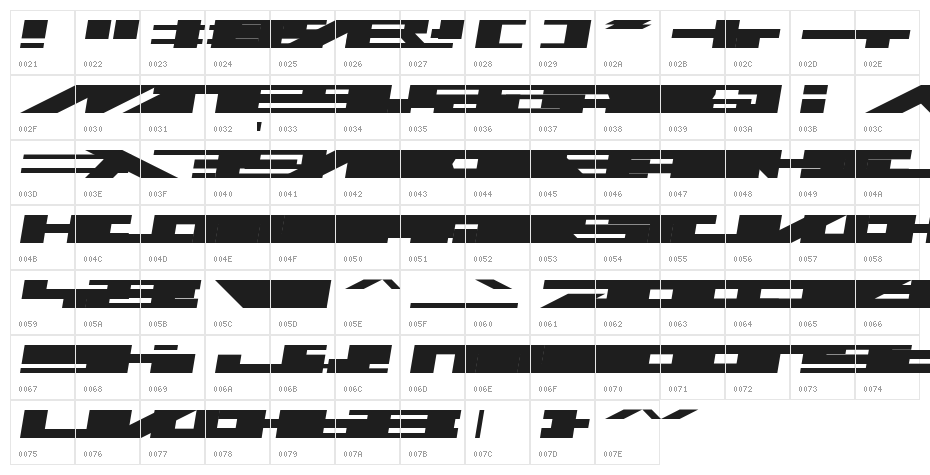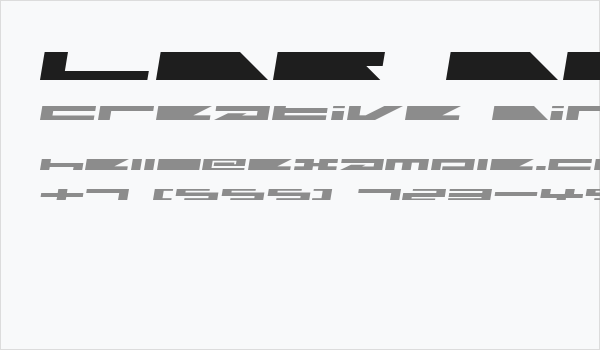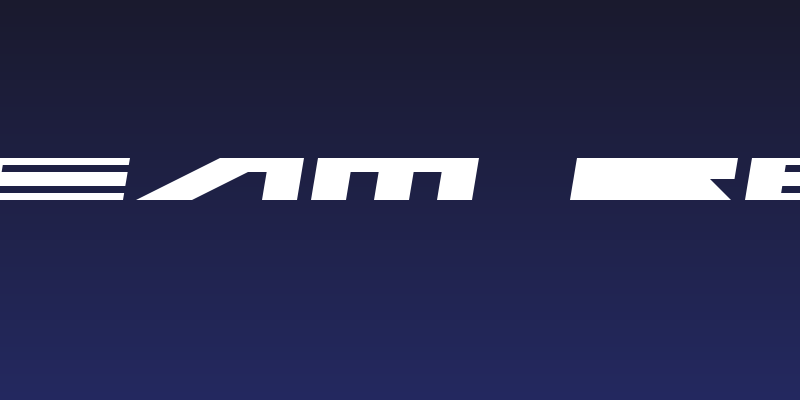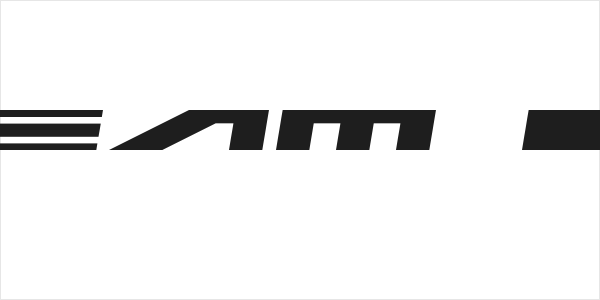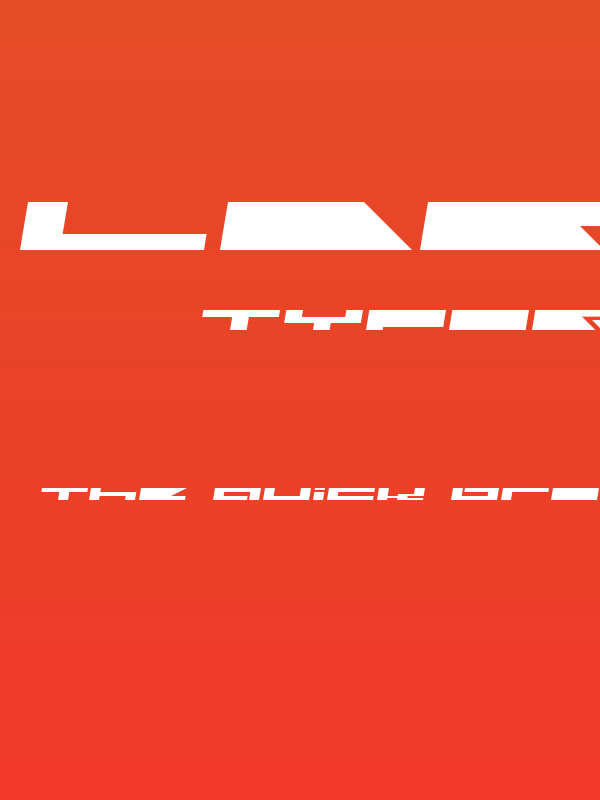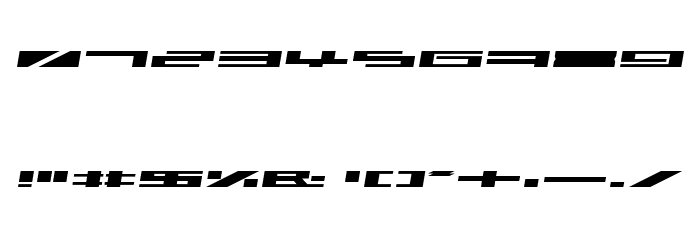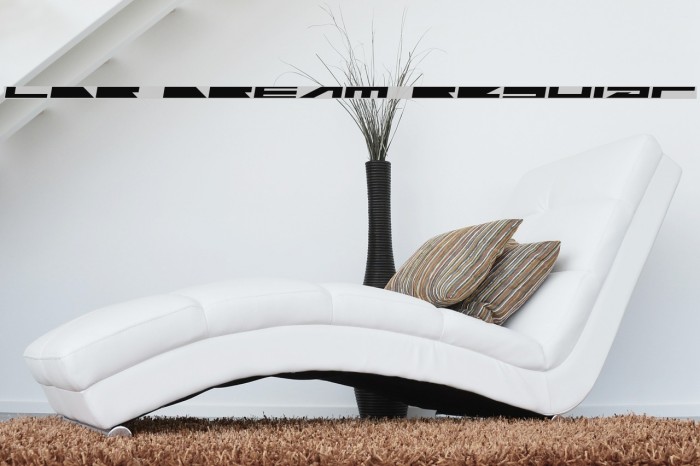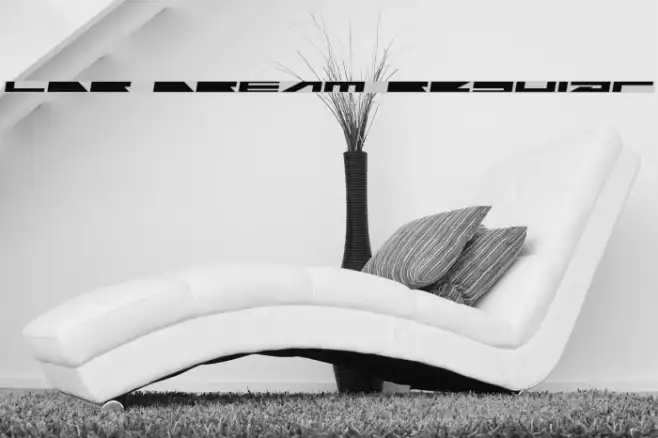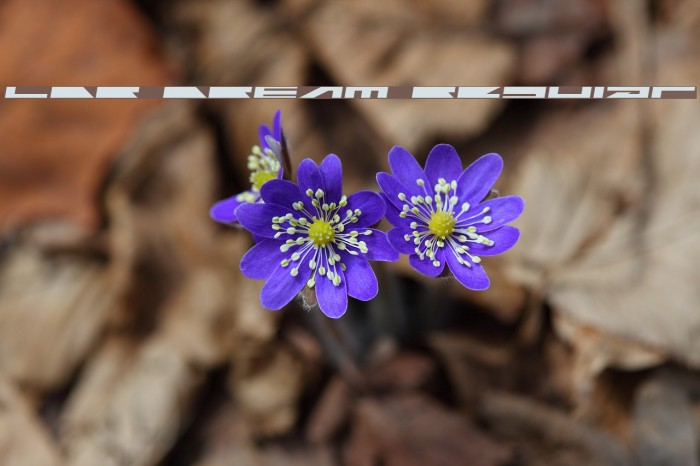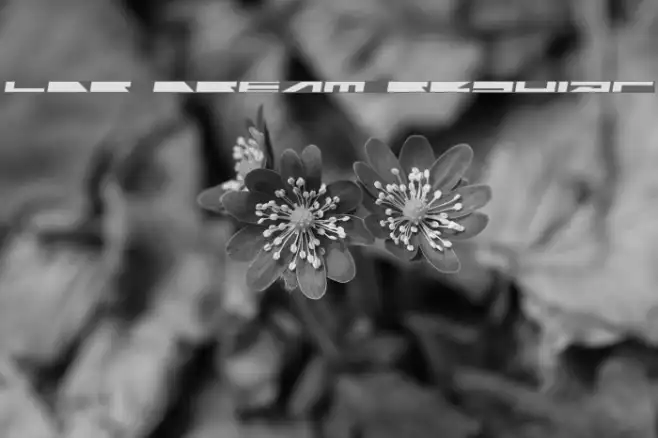
LDR DREAM Regular Font
LDR DREAM Regular Description
This font features a futuristic and angular design, characterized by sharp edges and geometric shapes. The letters are bold and dynamic, with a distinct sci-fi aesthetic that suggests movement and speed. The uppercase and lowercase characters maintain a consistent style, while the numbers and special characters integrate seamlessly into the overall design. The font's unique appearance makes it stand out, ideal for projects that require a modern and edgy look.
| Proposed Projects | Ideal for sci-fi movie posters, video game titles, tech branding, and futuristic-themed designs. |